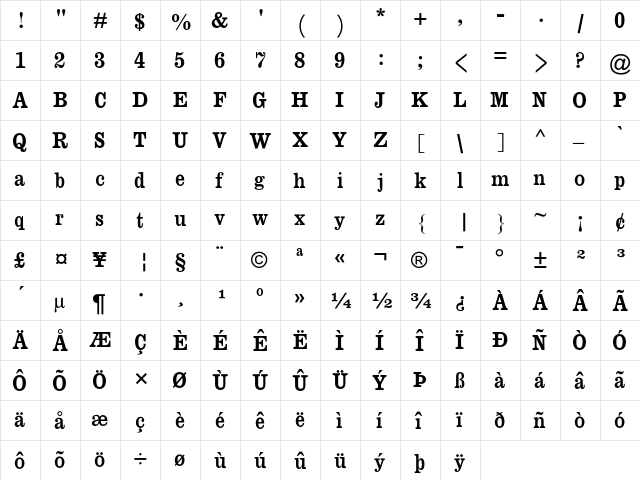
Dioxipe Bold
| Foundry | Semata |
Design Context for Dioxipe Typeface
Dioxipe takes a measured approach to typography — its balanced proportions and neutral character make it a reliable workhorse for both digital and print work. The heavy weight commands attention and anchors typographic hierarchies.